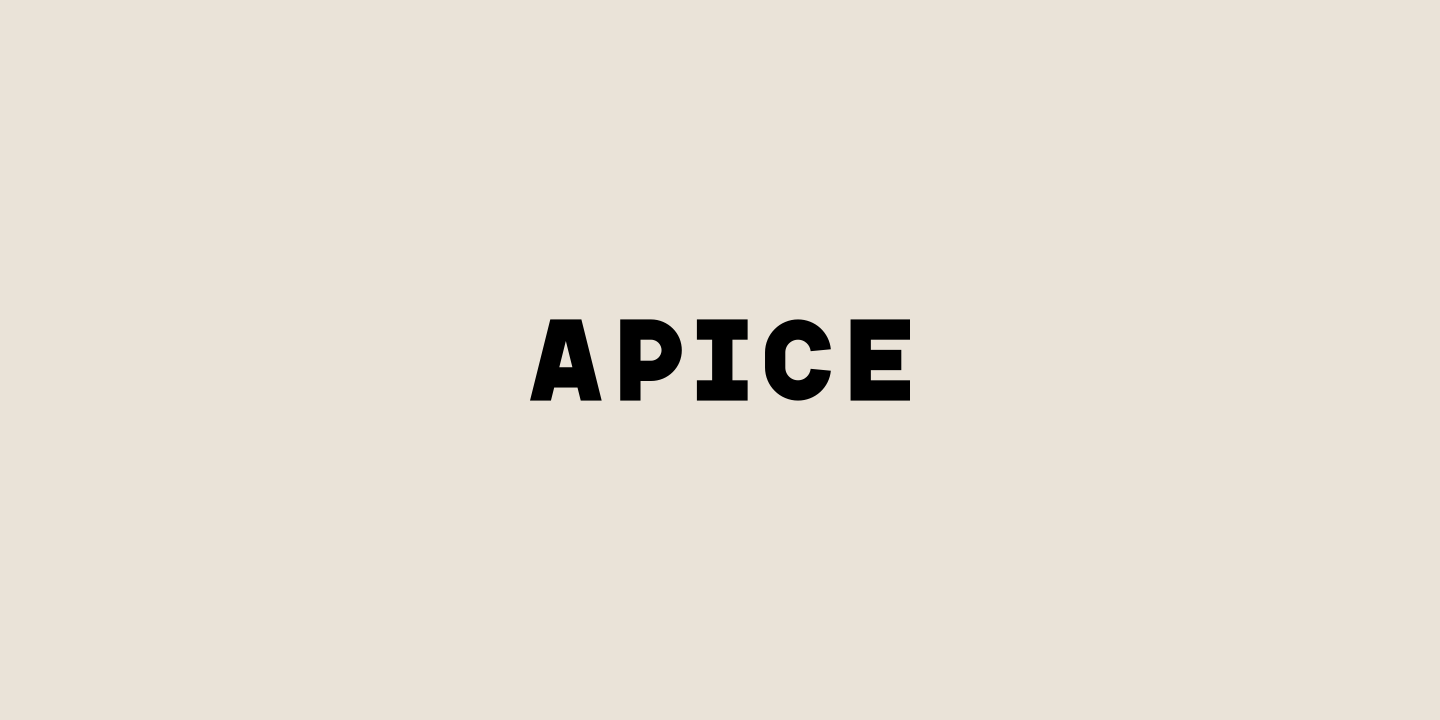
Apice Font is perfect for modern branding projects, elegant wedding invitations, luxury product packaging, sophisticated logo designs, premium website headers, high-end magazine layouts, upscale restaurant menus, boutique fashion catalogs, corporate identity materials, and exclusive event announcements.
Apice Font is exciting because it combines contemporary elegance with timeless sophistication, featuring carefully crafted letterforms that balance modern minimalism with classic readability. This versatile typeface offers exceptional legibility across all sizes while maintaining its distinctive character, making it an ideal choice for designers seeking to create memorable and impactful visual communications.
The Apice Font family includes multiple weights and styles: Regular, Bold, Light, Medium, SemiBold, Italic variations, Condensed versions, Extended formats, and specialized display variants, providing designers with comprehensive typographic flexibility for any creative project.
Apice Font represents a breakthrough in modern typography, delivering unparalleled versatility for professional design applications. Whether you're working on corporate branding, editorial design, or digital interfaces, this remarkable typeface adapts seamlessly to various design contexts while maintaining its distinctive personality.
The geometric precision of Apice Font makes it particularly suitable for tech startups, architectural firms, creative agencies, and luxury brands seeking a contemporary yet approachable aesthetic. Its clean lines and optimized spacing ensure excellent performance in both print and digital media, from business cards to large-scale environmental graphics.
Apice Font's OpenType features include stylistic alternates, ligatures, and advanced kerning pairs that enhance text flow and visual appeal. These professional-grade features enable designers to create sophisticated layouts that stand out in competitive markets.
The versatility of Apice Font extends beyond traditional applications, proving equally effective for mobile app interfaces, social media graphics, podcast covers, YouTube thumbnails, and digital marketing materials. Its scalability ensures consistent quality across all platforms and devices.
For creative professionals seeking to elevate their typography game, Apice Font provides the perfect balance of innovation and reliability. The font's contemporary appeal combined with its practical functionality makes it an essential addition to any designer's toolkit, offering endless possibilities for creative expression and professional excellence.